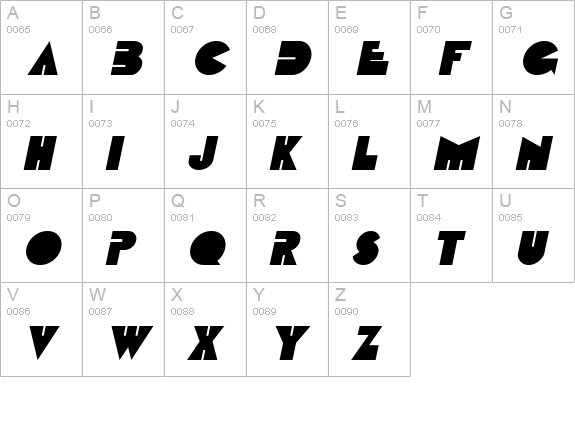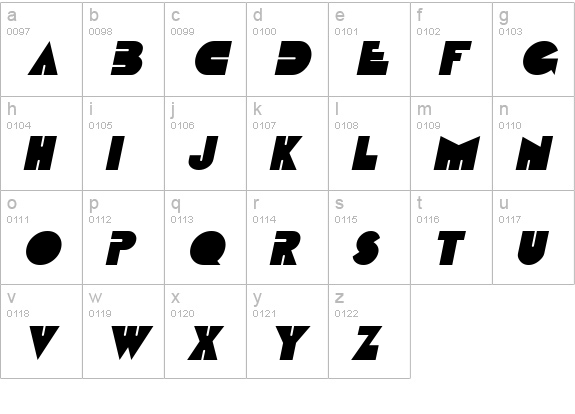
Fatso Italic is a distinctive, italic variant in the Fatso typeface family \xE2\x80\x94 well suited to design and typography projects.
Fatso Italic is a modern and playful font that exudes confidence and energy. Its bold and eye-catching design makes it perfect for headlines, branding, and creative projects that require a touch of personality. The slanted italic style adds a dynamic and expressive flair to any text, making it stand out from the crowd. Best of all, Fatso Italic is available for free download at FontsMarket.com. Whether you're a designer looking to add some pizzazz to your projects or a business owner wanting to make a statement with your branding, this font is a versatile and exciting choice. Download Fatso Italic today and let your creativity soar!